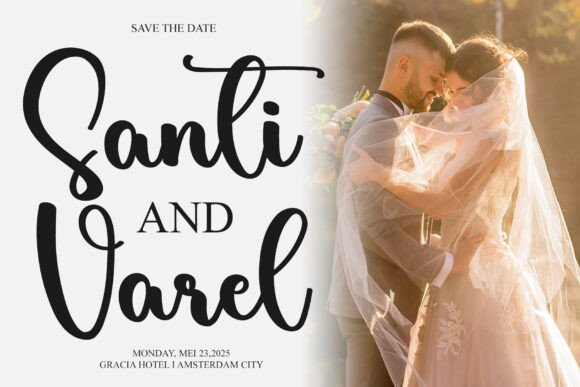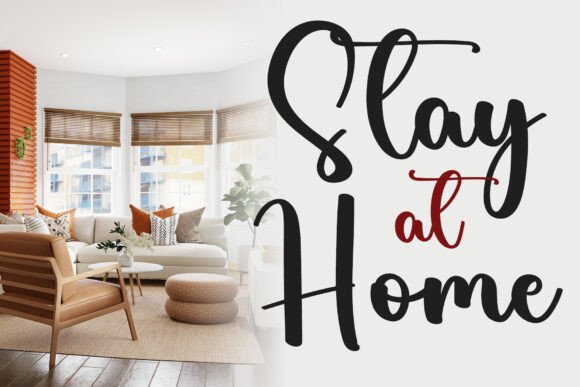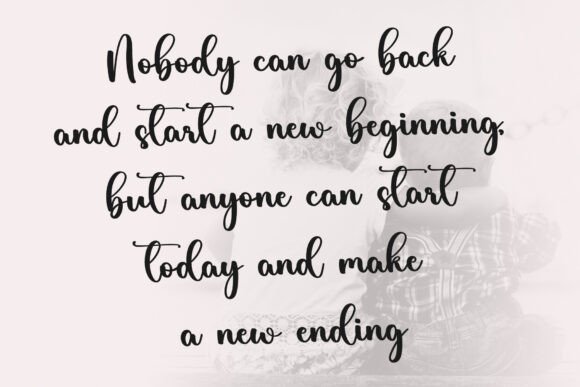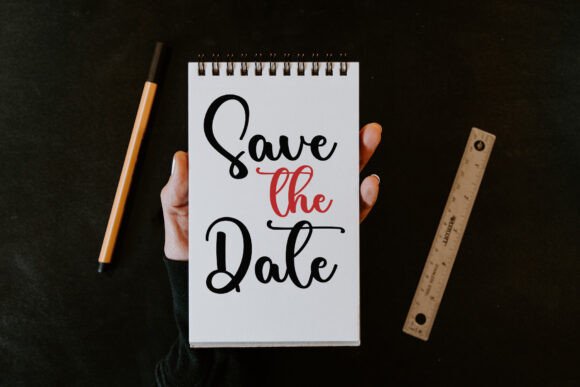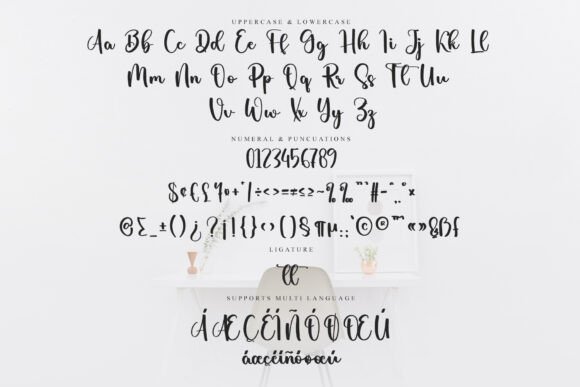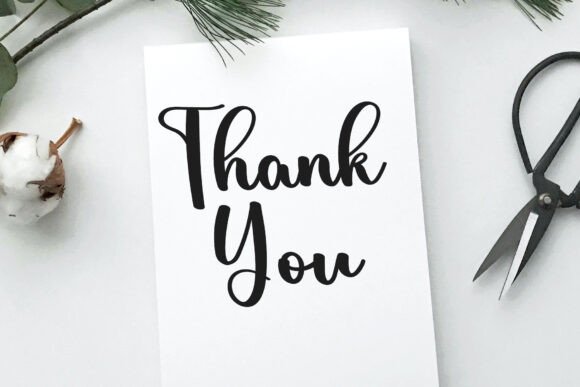
Introducing Darling Writing Font: The Sweet and Elegant Choice for Designers
Are you looking for a font that can add a touch of elegance and romance to your designs? Look no further than Darling Writing Font, a beautiful and cursive handwritten font that is perfect for a variety of design projects. With its gentle and sweet appearance, Darling Writing Font is sure to make your designs stand out and leave a lasting impression.
What Makes Darling Writing Font So Special?
Darling Writing Font is a unique and stylish font that is designed to add a touch of sophistication and elegance to your designs. Its cursive and handwritten appearance gives it a personal and intimate feel, making it perfect for designs that require a human touch. Whether you’re working on a branding project, a wedding invitation, or a greeting card, Darling Writing Font is the perfect choice.
One of the things that sets Darling Writing Font apart from other fonts is its versatility. It can be used for a wide range of design projects, from logos and branding to marketing materials and social media graphics. Its elegant and refined appearance makes it perfect for designs that require a touch of sophistication, while its casual and approachable feel makes it suitable for more laid-back designs.
Darling Writing Font is a must-have for designers and crafters who want to add a touch of elegance and sophistication to their designs. Whether you’re working on a client project or creating something for your own brand, this font is sure to impress. Its unique and stylish appearance makes it perfect for a wide range of design projects, from wedding invitations and greeting cards to logos and branding materials.
Use Darling Writing Font for:
- Branding: Use Darling Writing Font to create a unique and stylish brand identity that sets you apart from the competition.
- Wedding Invitations: Add a touch of elegance and romance to your wedding invitations with Darling Writing Font.
- Greeting Cards: Use Darling Writing Font to create beautiful and heartfelt greeting cards for any occasion.
- Marketing Materials: Add a touch of sophistication and elegance to your marketing materials with Darling Writing Font.
- Logos: Use Darling Writing Font to create a unique and stylish logo that represents your brand.
Why Choose Darling Writing Font?
There are many reasons why Darling Writing Font is a great choice for designers and crafters. Here are just a few:
- Unique and Stylish: Darling Writing Font has a unique and stylish appearance that sets it apart from other fonts.
- Elegant and Refined: Darling Writing Font has an elegant and refined appearance that makes it perfect for designs that require a touch of sophistication.
- Casual and Approachable: Darling Writing Font also has a casual and approachable feel that makes it suitable for more laid-back designs.
- Versatile: Darling Writing Font can be used for a wide range of design projects, from logos and branding to marketing materials and social media graphics.
Darling Writing Font is a beautiful and elegant font that is perfect for designers and crafters who want to add a touch of sophistication and elegance to their designs. With its unique and stylish appearance, Darling Writing Font is sure to make your designs stand out and leave a lasting impression. Whether you’re working on a branding project, a wedding invitation, or a greeting card, Darling Writing Font is the perfect choice.